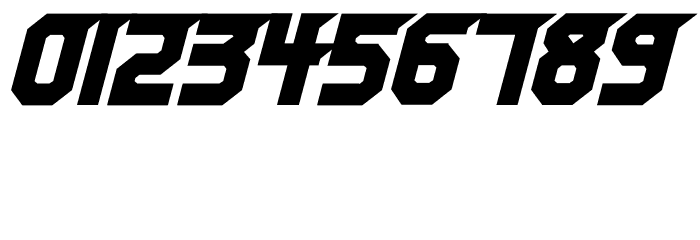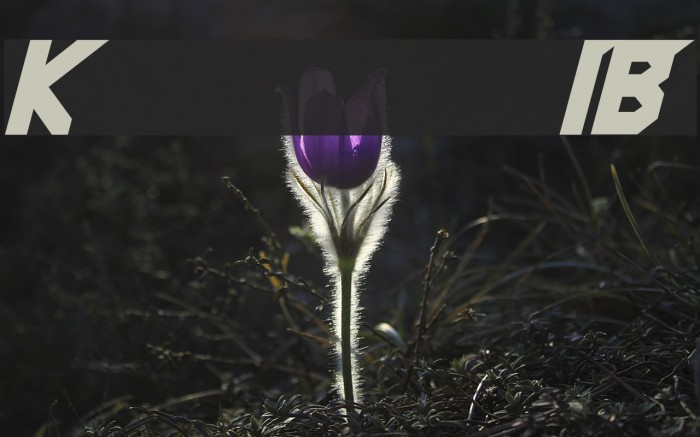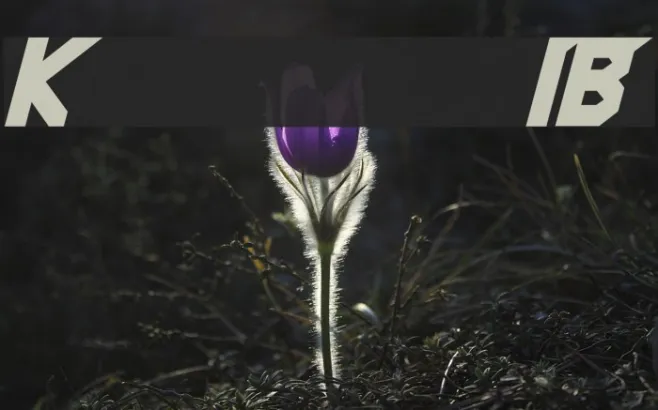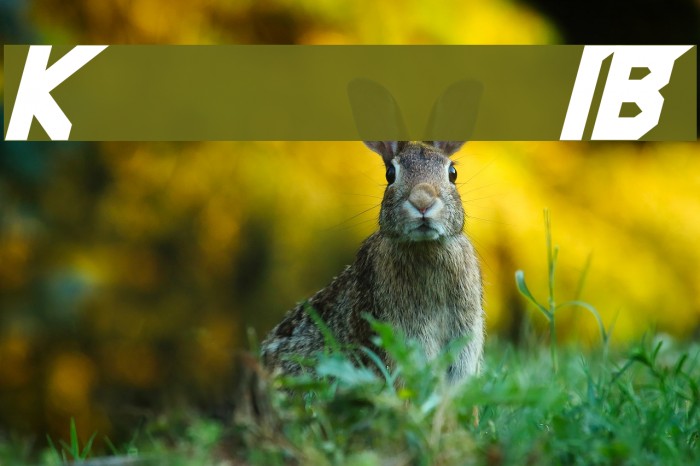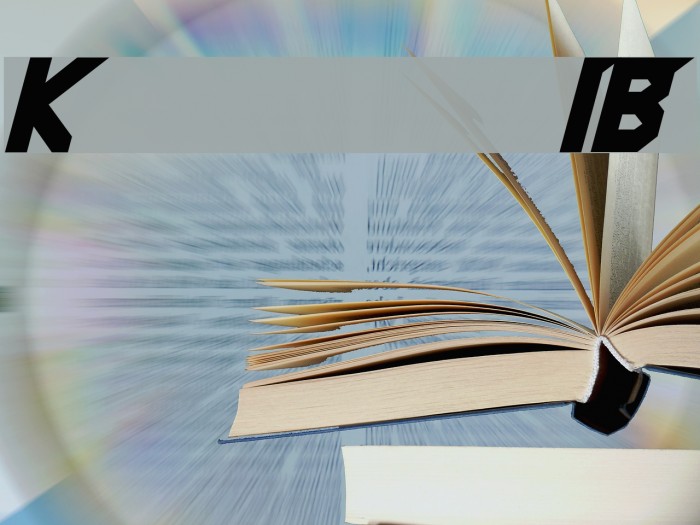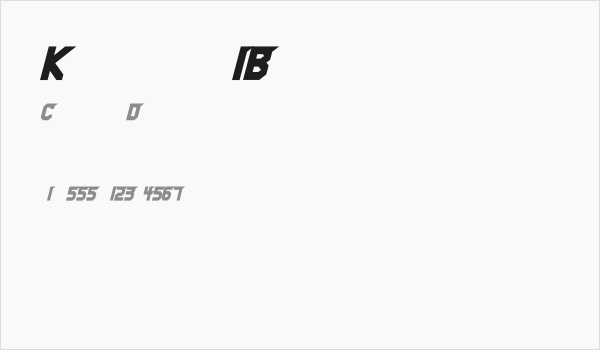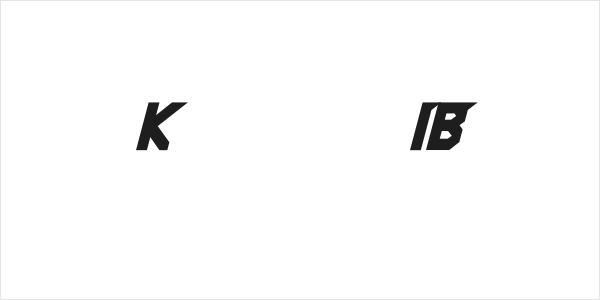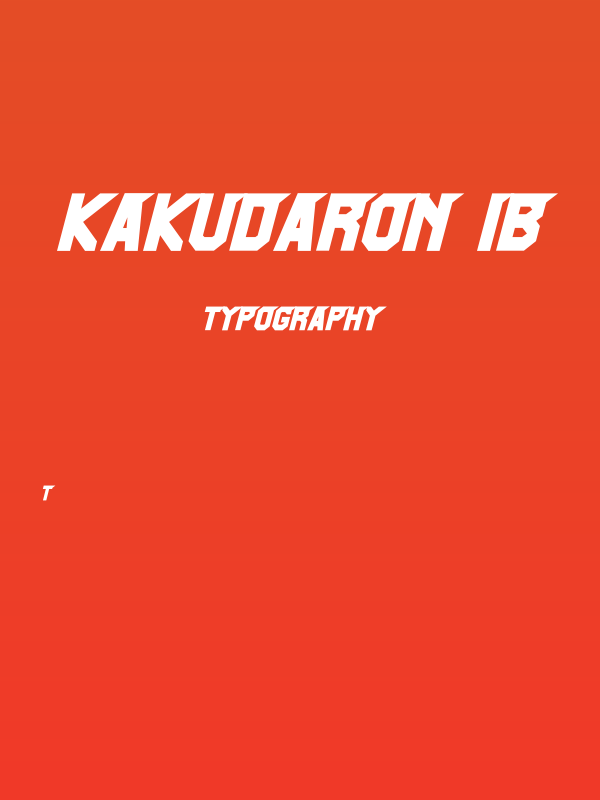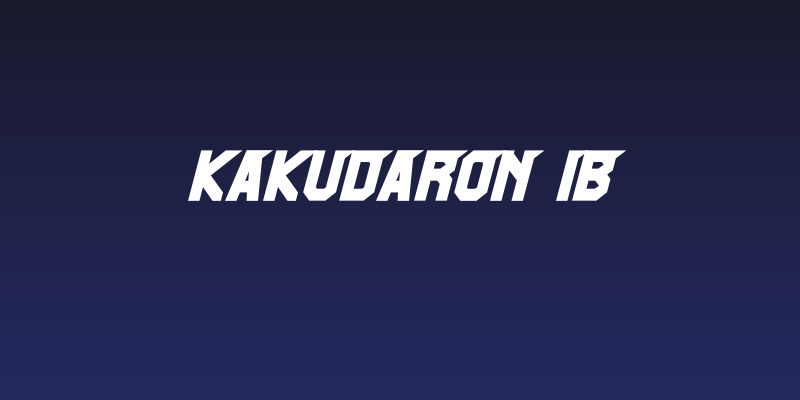
Kakudaron-IB Font
Kakudaron-IB Description
This font features a bold and dynamic style with sharp, angular edges and a futuristic appearance. The uppercase letters are designed with a strong geometric influence, giving them a sense of movement and energy. The numbers follow the same design principles, maintaining consistency across the character set. The absence of lowercase letters emphasizes its use for impactful, attention-grabbing text. The overall design is reminiscent of a sci-fi or tech-inspired aesthetic, making it suitable for modern and edgy projects.
| Proposed Projects | Ideal for sci-fi themed designs, tech branding, video game titles, and dynamic posters. |